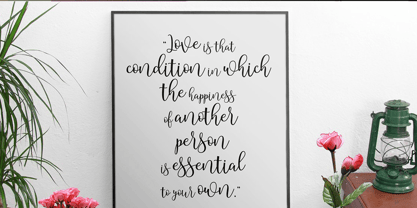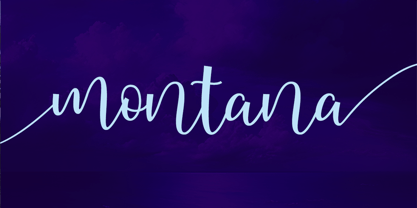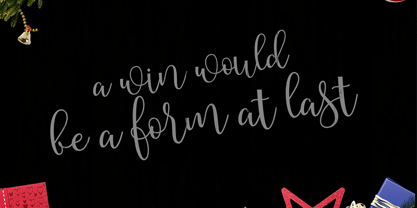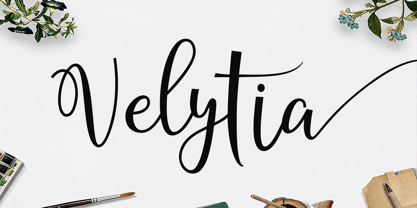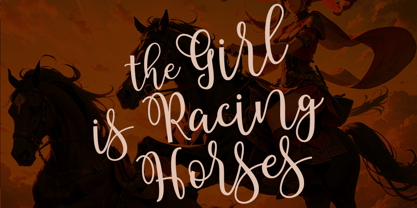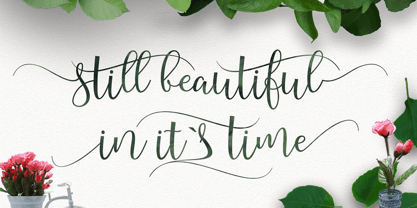
Velytia
Velytia – Elegant Calligraphy Font
Velytia is a refined calligraphy font that embodies timeless elegance, graceful movement, and the beauty of handcrafted lettering. Featuring flowing strokes, delicate curves, and naturally connected letterforms, Velytia creates a sophisticated handwritten look that is both romantic and modern.
Carefully designed to deliver a smooth and luxurious writing experience, Velytia brings charm and personality to every word. Its elegant calligraphic style makes it ideal for wedding invitations, luxury branding, signature logos, product packaging, editorial layouts, and social media content.
With its balanced proportions and beautiful rhythm, Velytia offers versatility for both formal and creative applications. Whether you're designing an unforgettable wedding suite or building a premium brand identity, Velytia adds a touch of elegance and authenticity to your work.
Features
• Elegant calligraphy style
• Smooth and flowing handwritten strokes
• Beautiful uppercase and lowercase characters
• Stylish ligatures and alternates
• Numbers and punctuation
• Multilingual support